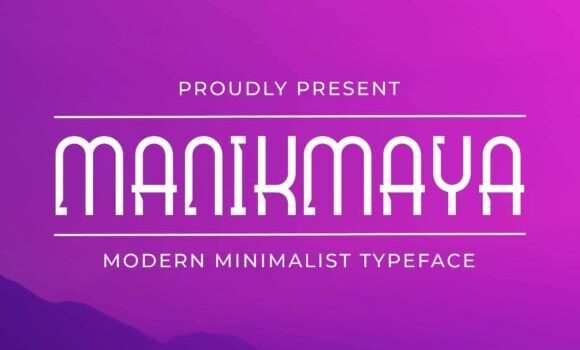
manikmaya
Manikmaya Font – Free Download Introduction to Manikmaya Font Manikmaya is a modern creative sans serif font that blends contemporary form with expressive uniqueness. 📸 Preview Gallery 3 images 📌 Product Name Manikmaya Font 👤 Author Artiveko 📂 Category Explore